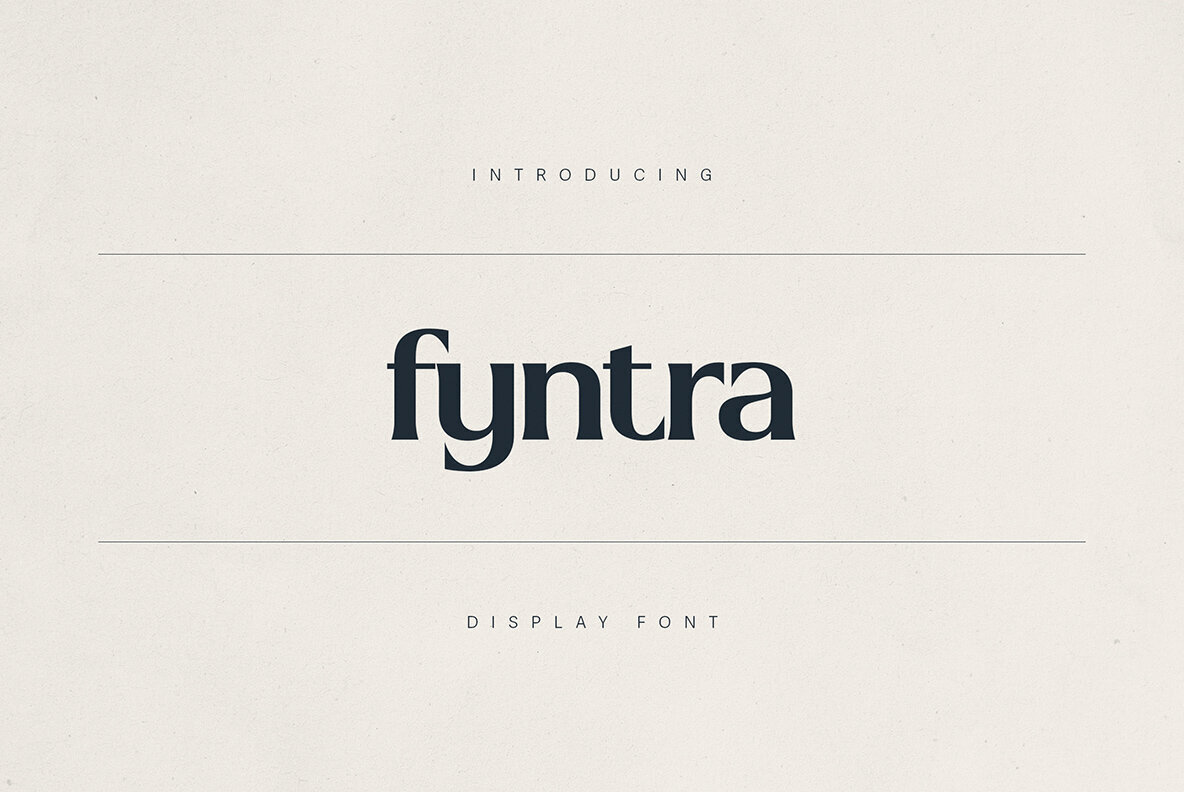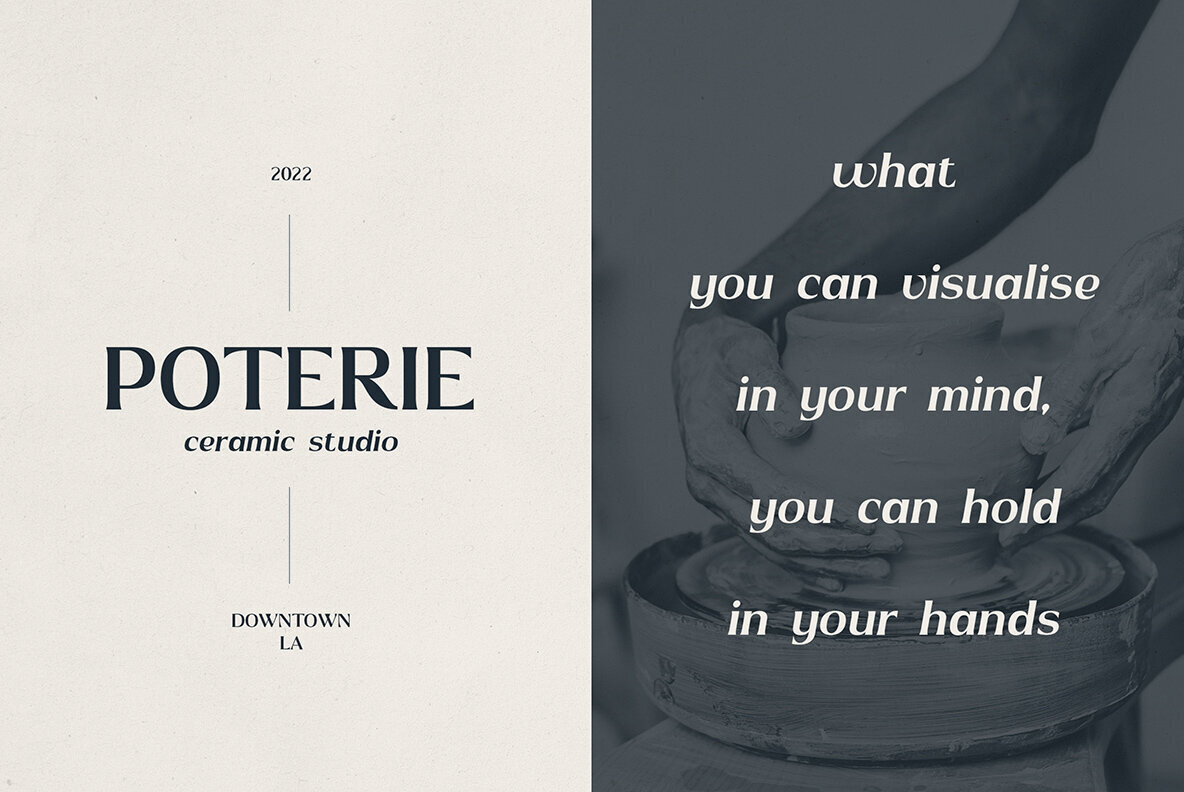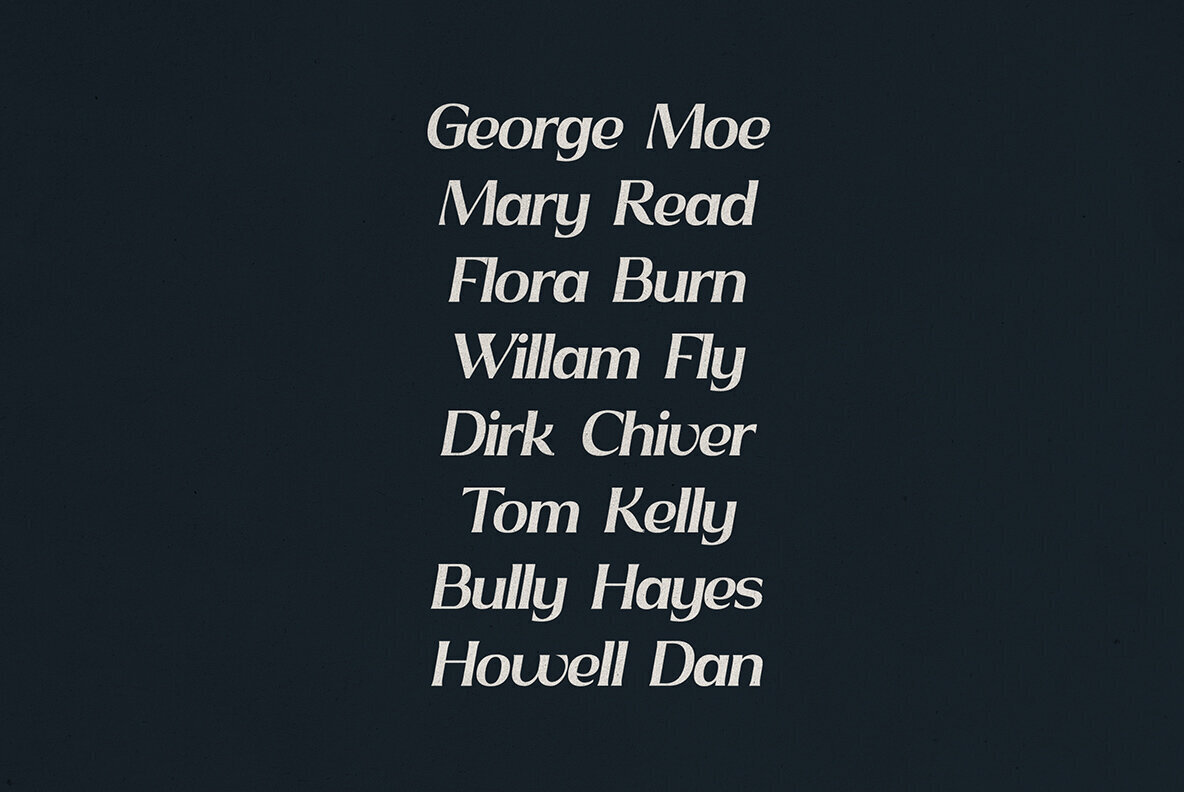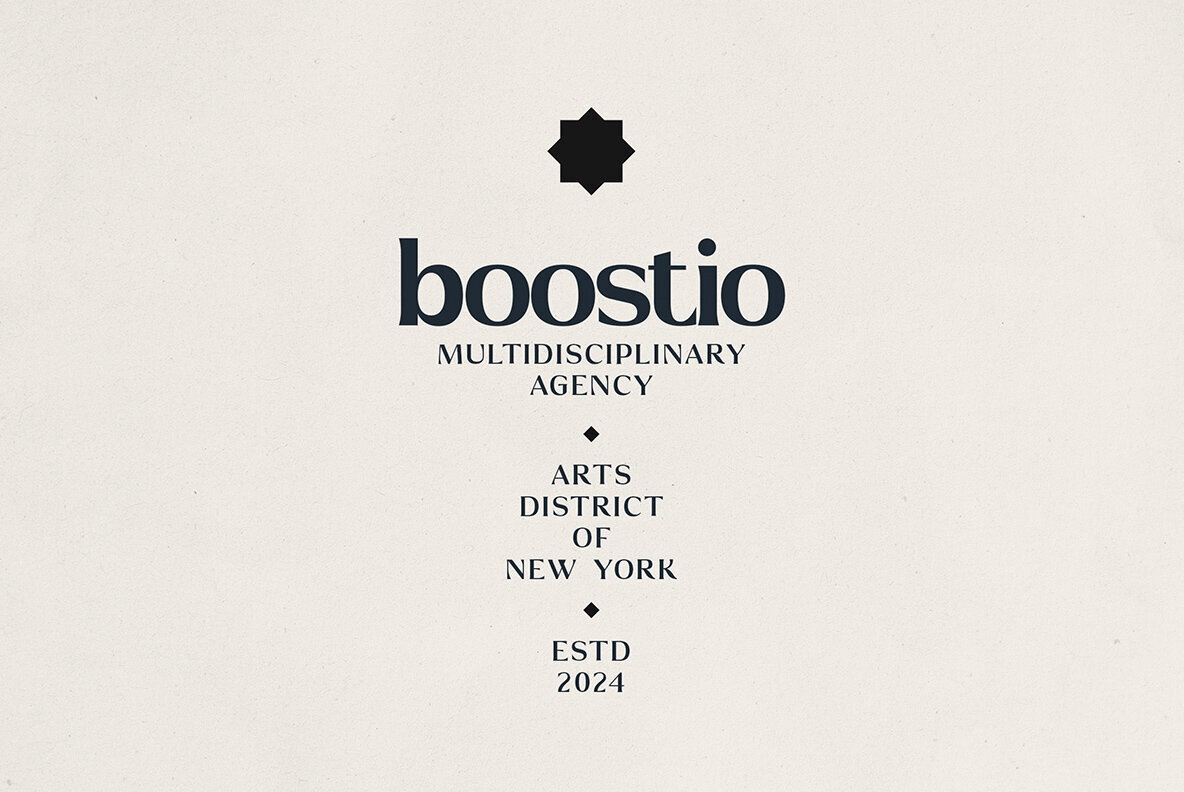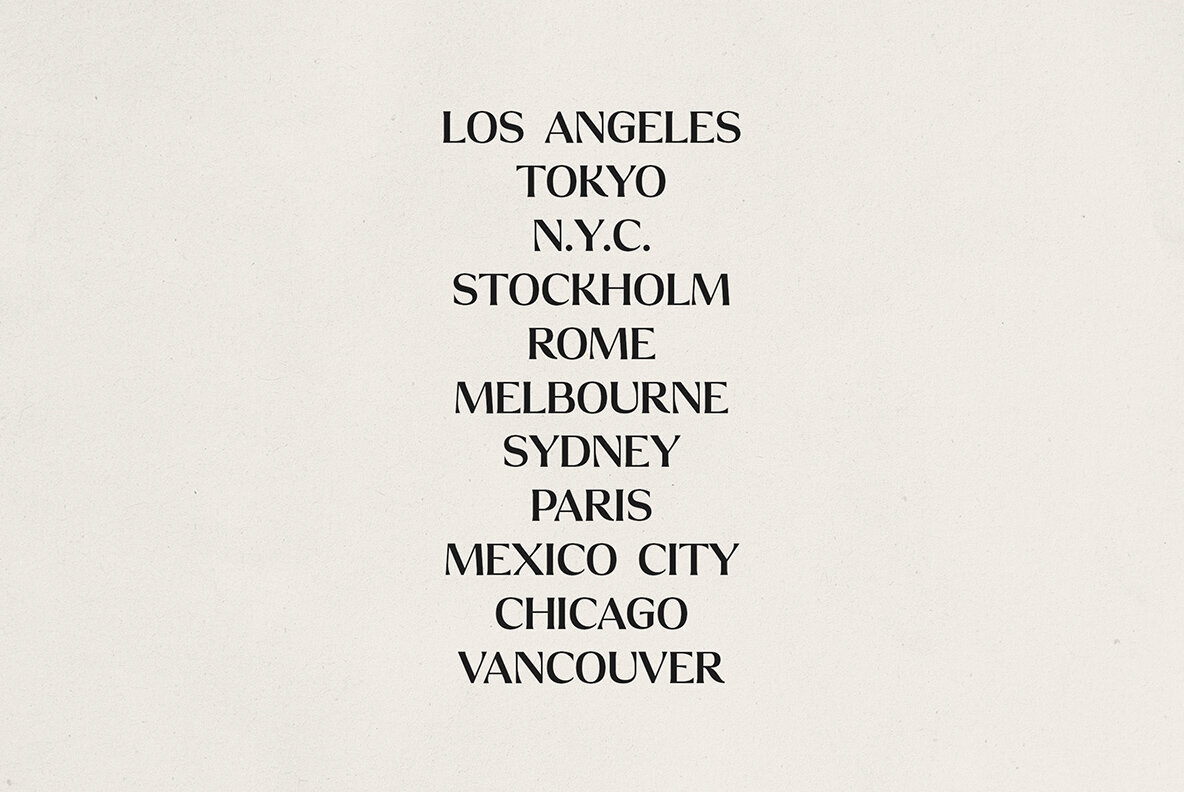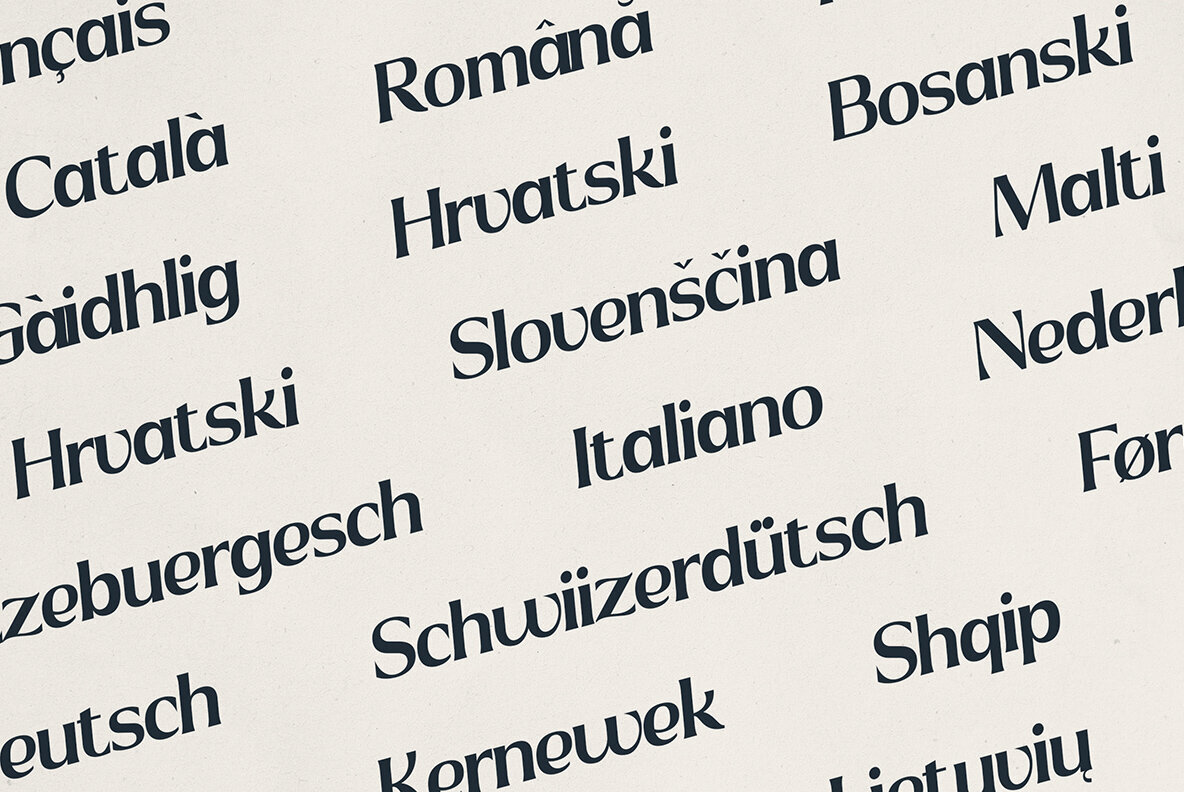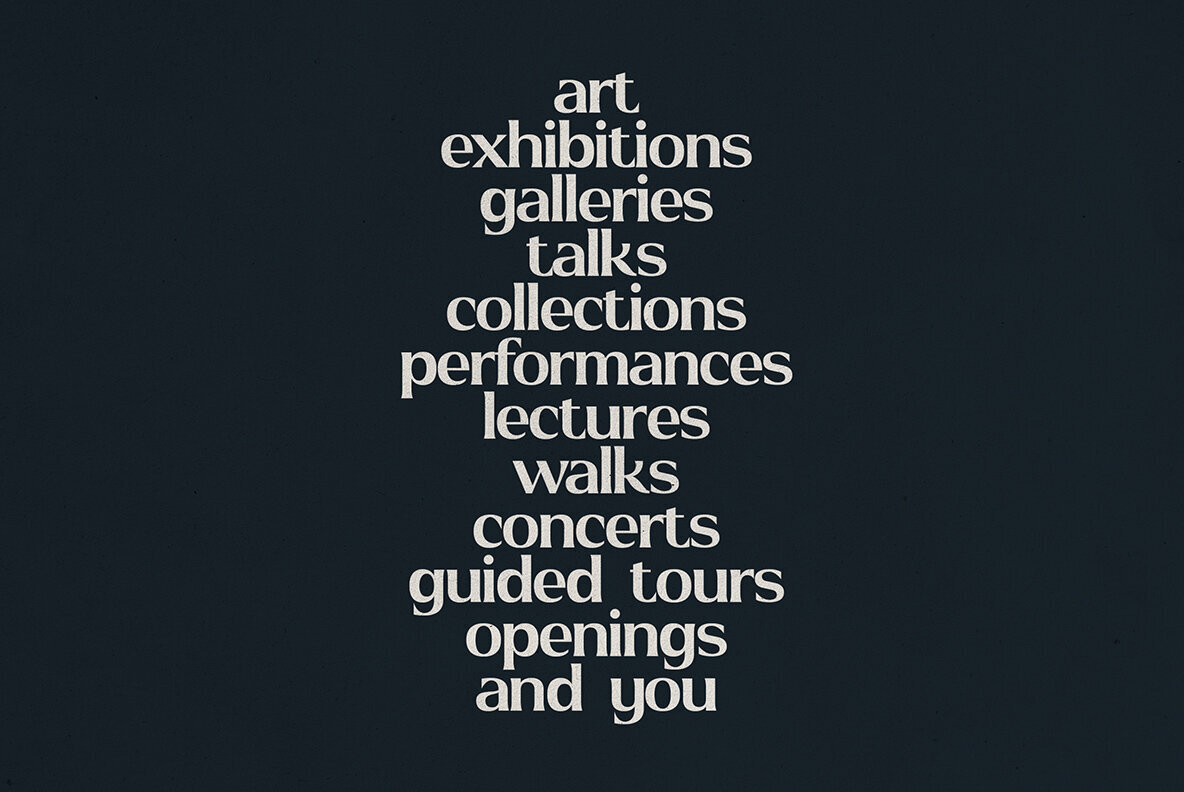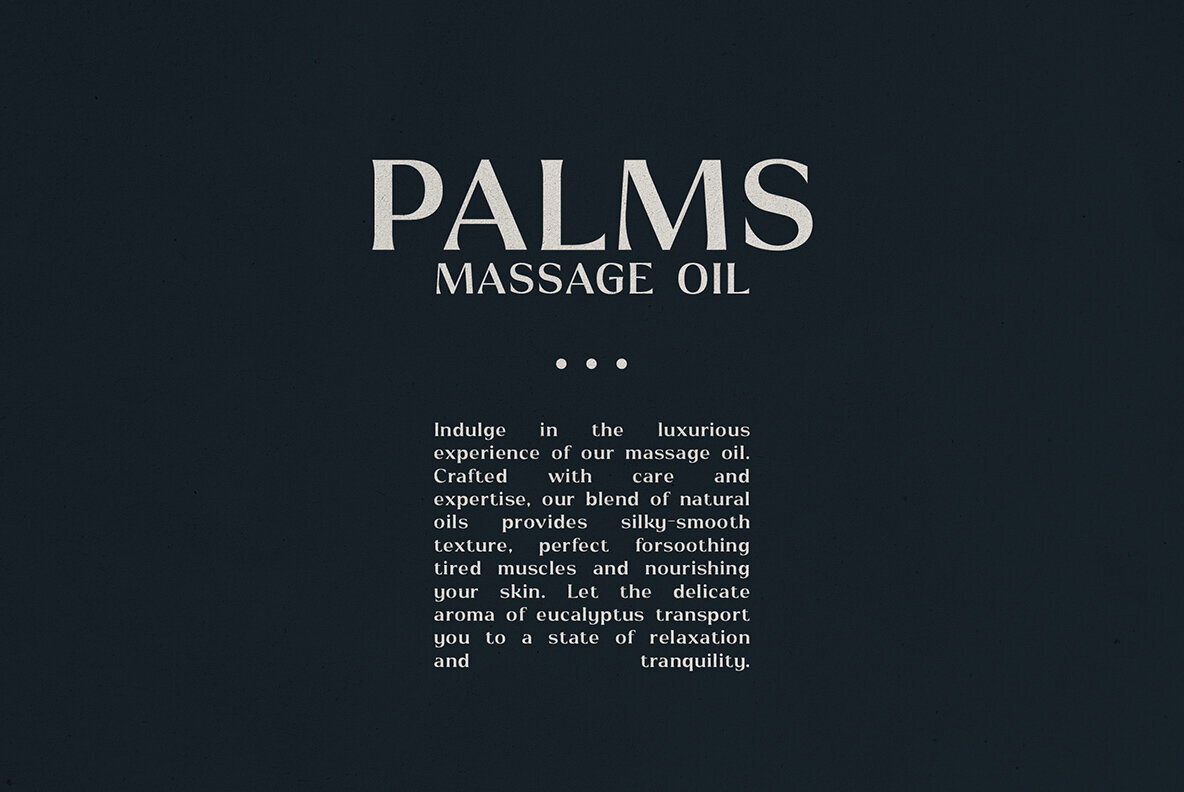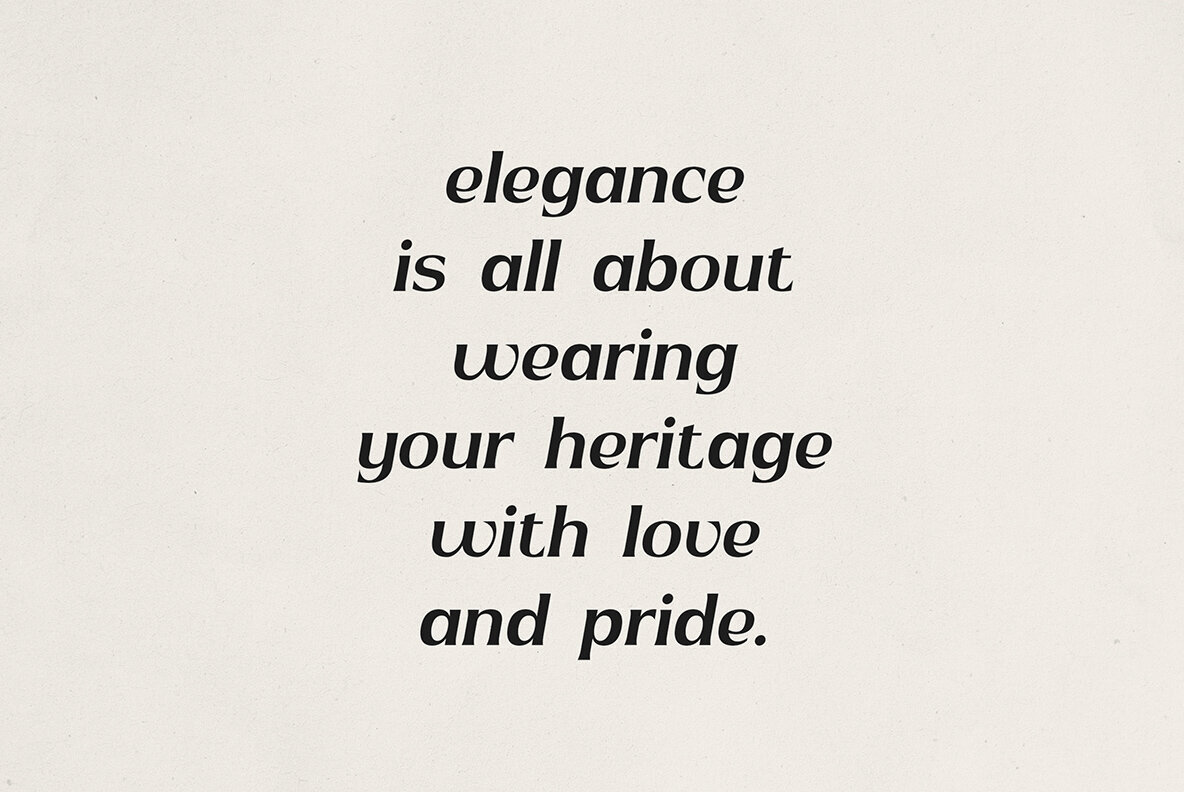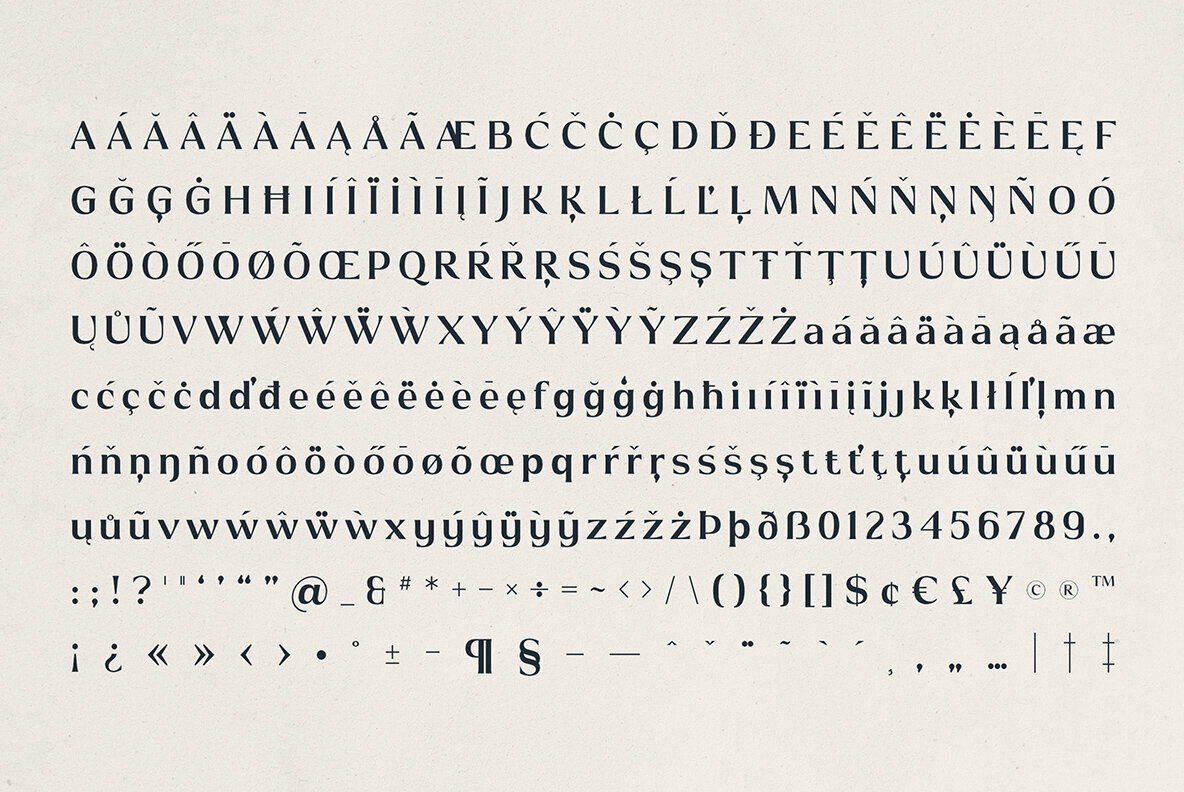
Fyntra Font
Fyntra is a sophisticated display serif font that exudes refined elegance suitable for a variety of creative projects. Designed to enhance branding, editorial design, packaging, and high-end creative endeavors, Fyntra features unique letterforms that seamlessly combine classic serifs, sleek curves, and sharp terminals. Whether used in headlines, logos, or artistic compositions, Fyntra commands attention and elevates your designs with its confident personality. Beyond its aesthetic appeal, Fyntra supports over 85 languages and provides a comprehensive character set, including upper and lowercase letters, numbers, punctuation, and multilingual accents. This versatility makes it an ideal choice for creative agencies, fashion labels, luxury goods, and cultural publications. Perfect for magazine covers, boutique brand identities, and social media graphics, this typeface blends modern aesthetics with timeless style for maximum impact.Fyntra: Modern Elegant Display Serif Font